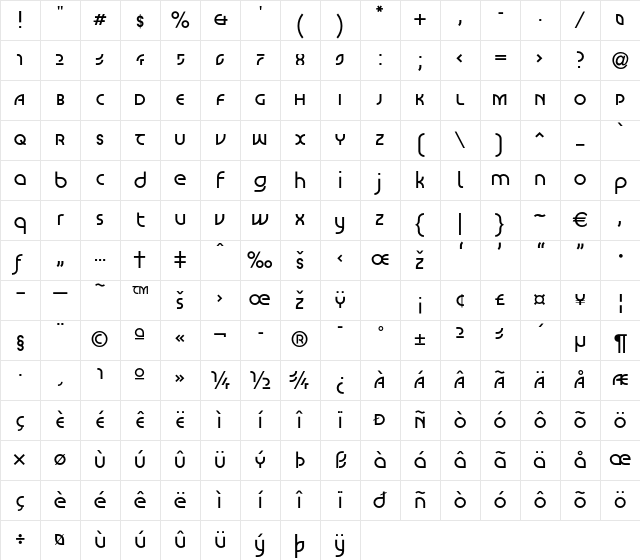
Complete LinotypeScott Venus Regular glyph index. Displaying only characters natively supported by LinotypeScott Venus Regular font.
LinotypeScott Venus is a composed and adaptable typeface that performs quietly and consistently across a wide range of design contexts.